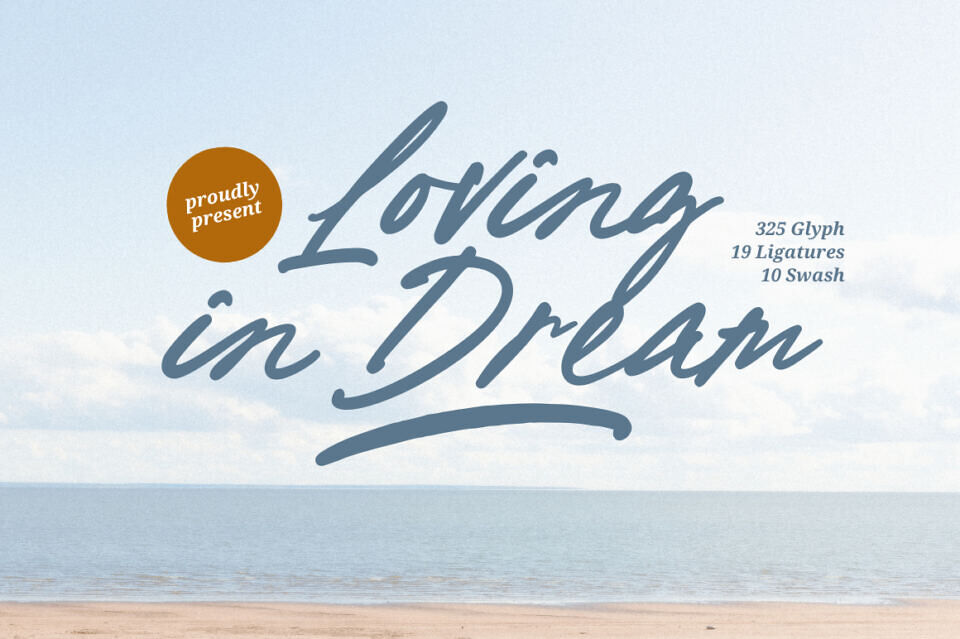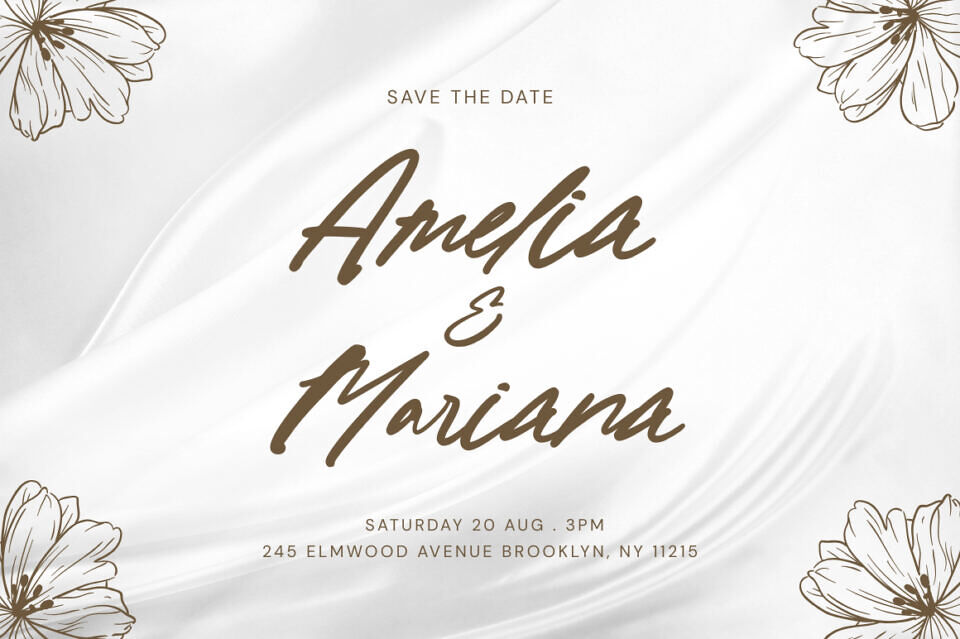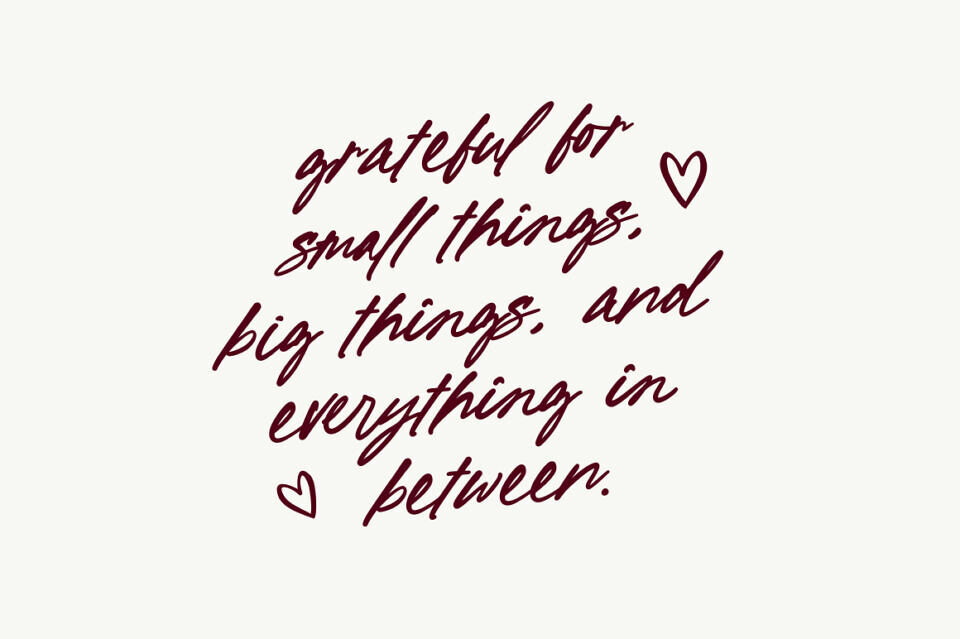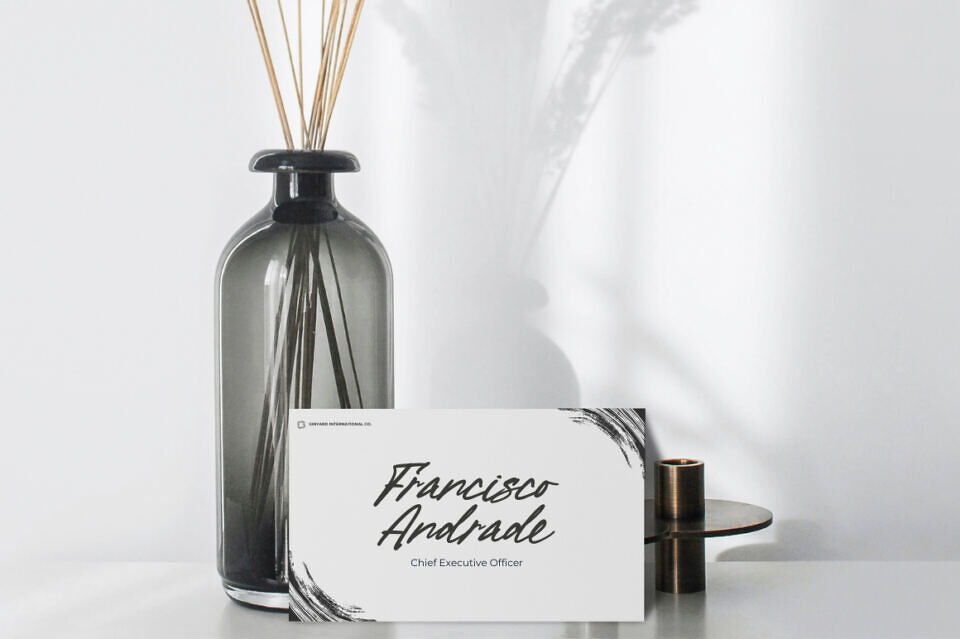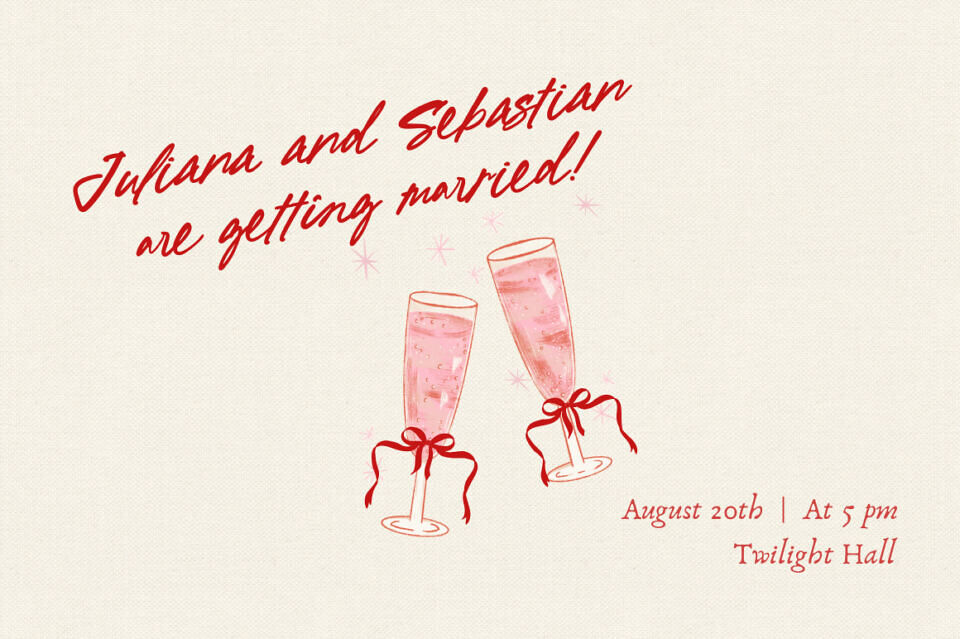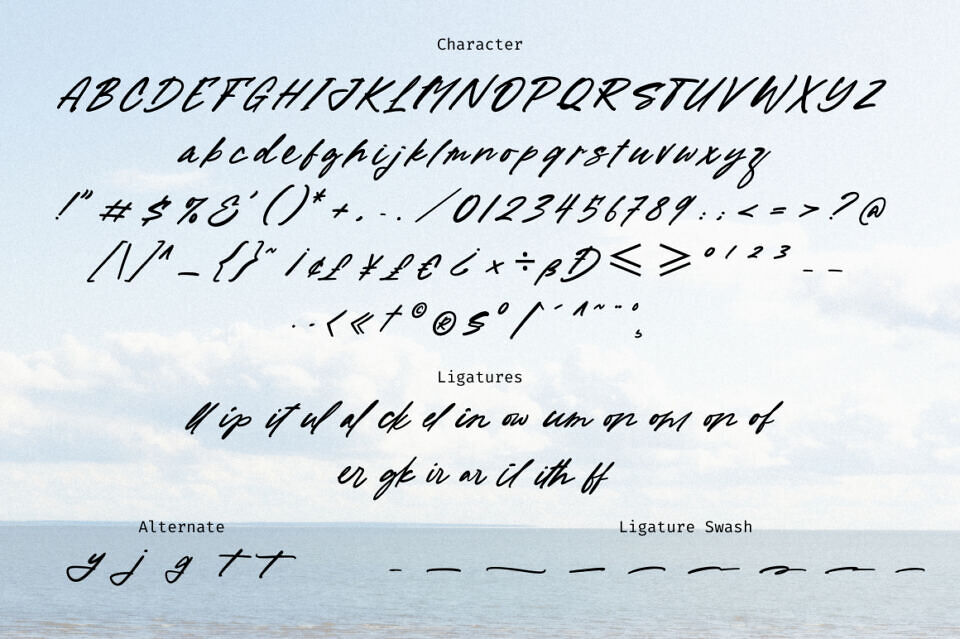
Loving in Dream is an elegant and refined signature script font that captures the beauty of natural handwriting. With its graceful strokes, smooth curves, and stylish letterforms, this font is perfect for branding, wedding invitations, product packaging, social media, and personal signatures.
Loving in Dream brings a luxurious yet personal feel to any design, making your work stand out with sophistication and charm.